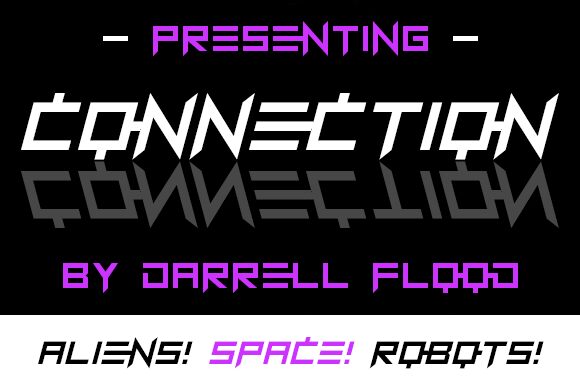
Connection
Connection, a futuristic display font designed by Darrell Flood, is perfect for creating eye-catching, modern designs. Its light weight and wide width make it ideal for projects that require high visibility and impact, such as billboards and posters. Its contemporary feel also makes it great for website logos and app icons. Use Connection to give your project a stylish edge!